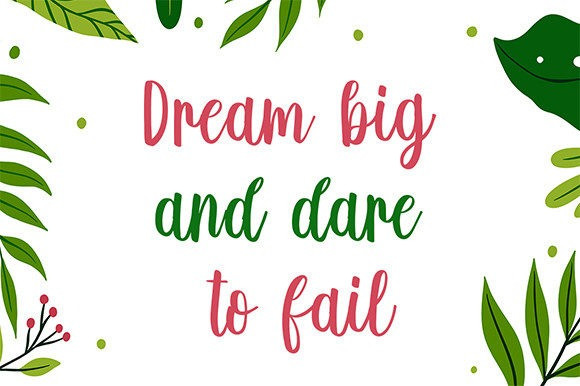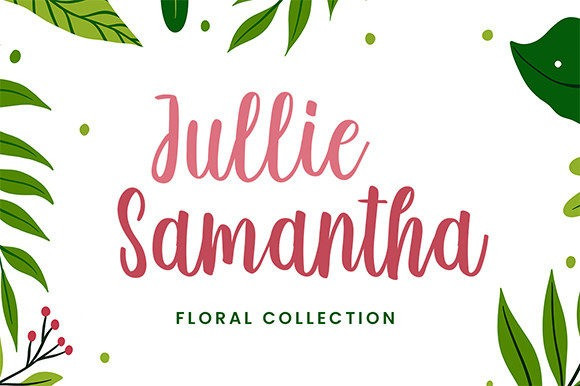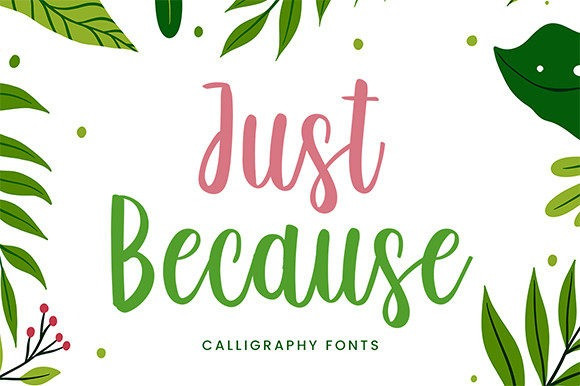
Just Because Font
Just Because Font is a sweet script font with a gorgeous feel. Its distinct and well rounded letters make this font a masterpiece. It is suitable for any branding project like logos, t-shirt printing, sport designs, and more. It will look outstanding in a wide range of contexts.